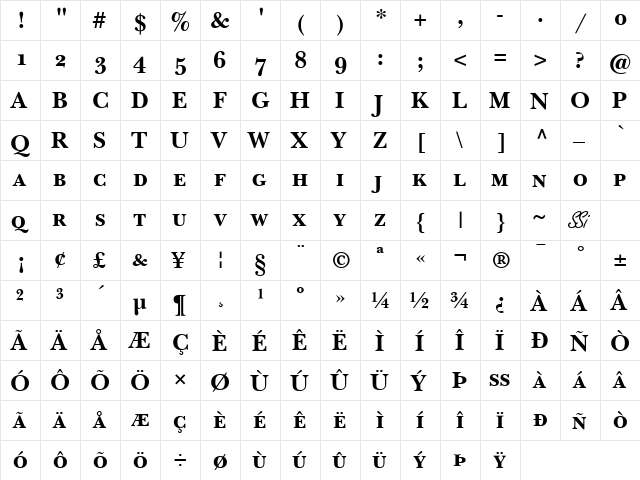
Baskerville Small Caps SSi Bold Small Caps
Design Context for Baskerville Small Caps SSi Typeface
Baskerville Small Caps SSi offers clean, dependable letterforms without strong stylistic allegiance, making it a practical choice for designers who need flexibility. Its bold stroke weight gives it real presence on the page.